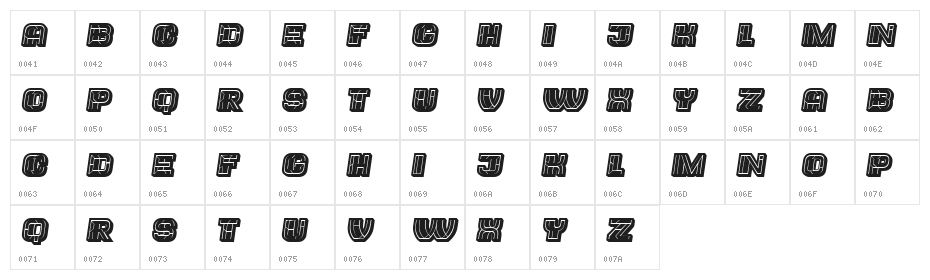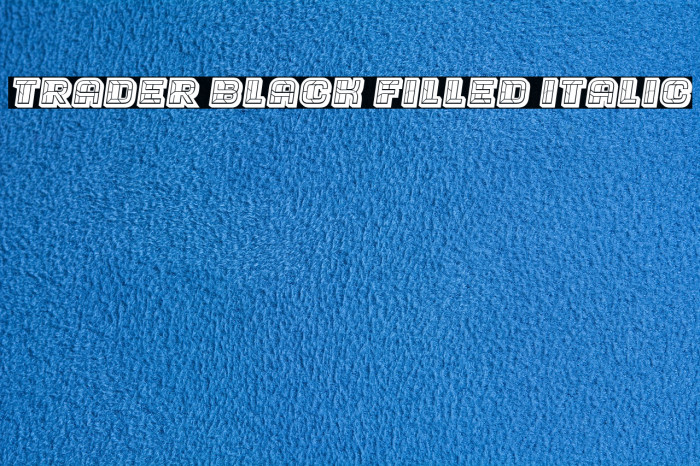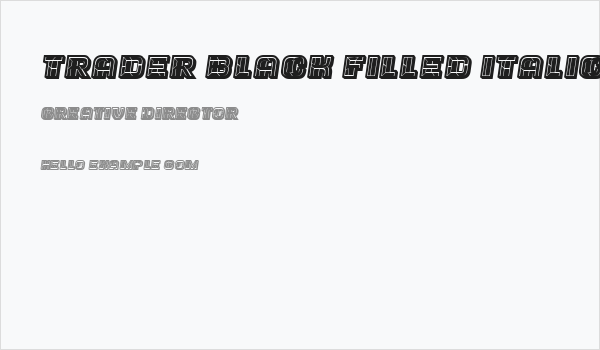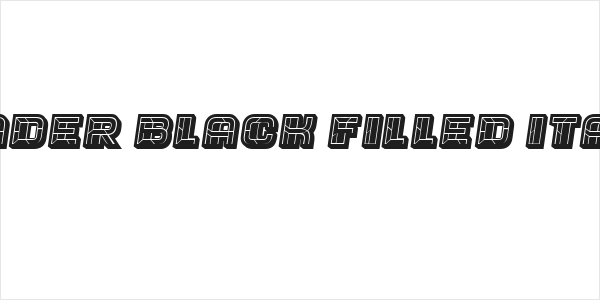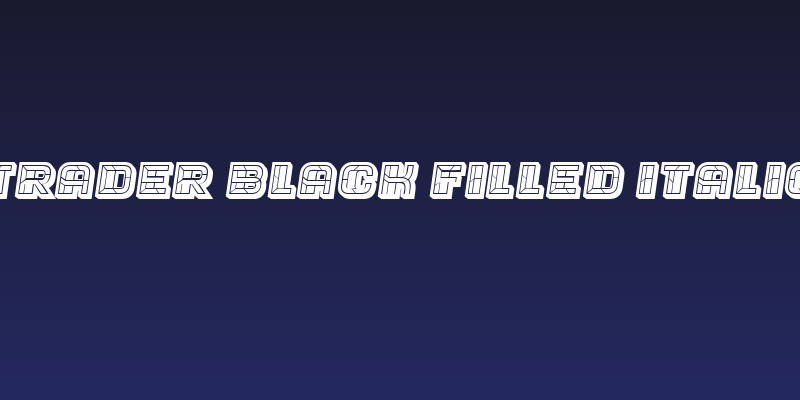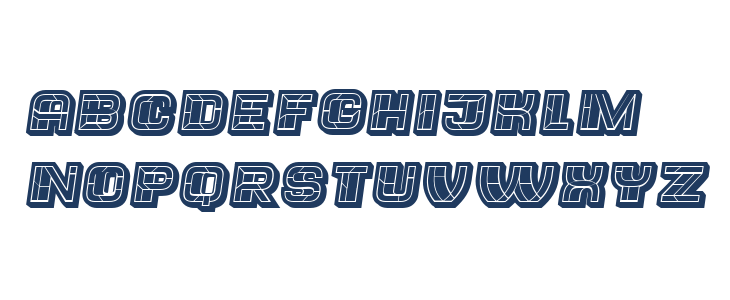
Trader Black Filled Italic Font
Trader Black Filled Italic Description
This font features a bold and dynamic style with a filled, italicized design. The characters are outlined with a thick black border, giving them a strong presence. The geometric shapes and sharp angles create a modern and edgy look, making it suitable for attention-grabbing headlines or logos. The italic slant adds a sense of motion and energy, enhancing its visual impact. This font is ideal for projects that require a bold statement and a contemporary feel.
| Proposed Projects | Ideal for branding, posters, headlines, and modern design projects. |